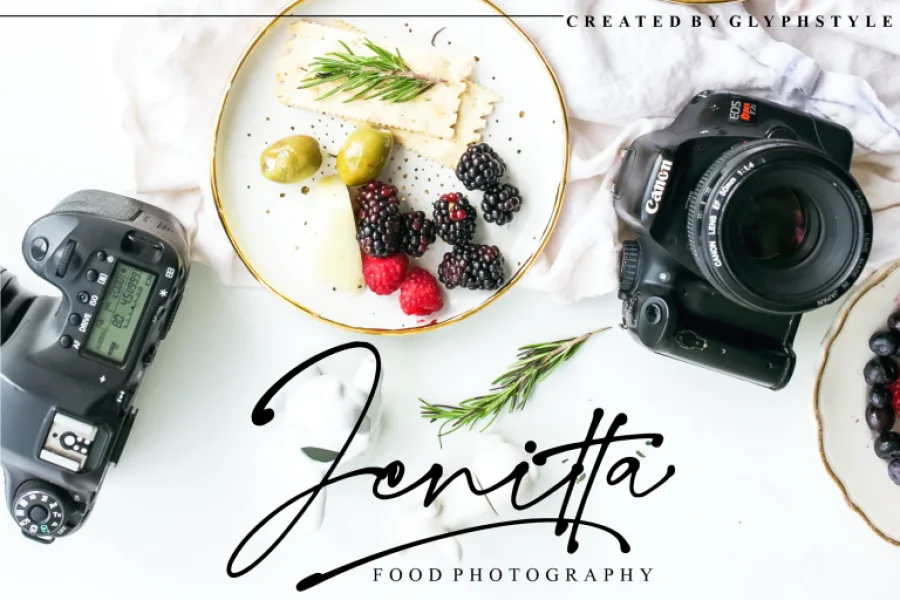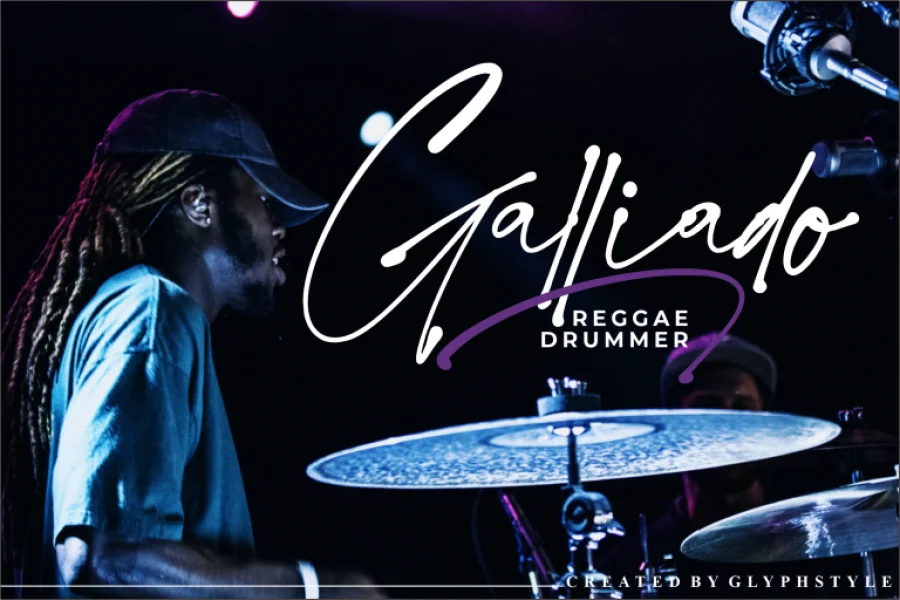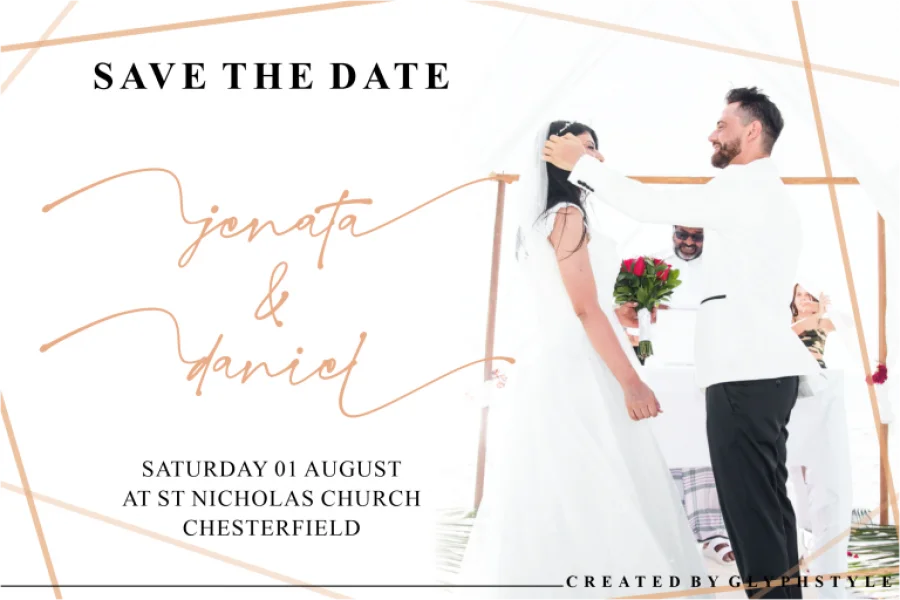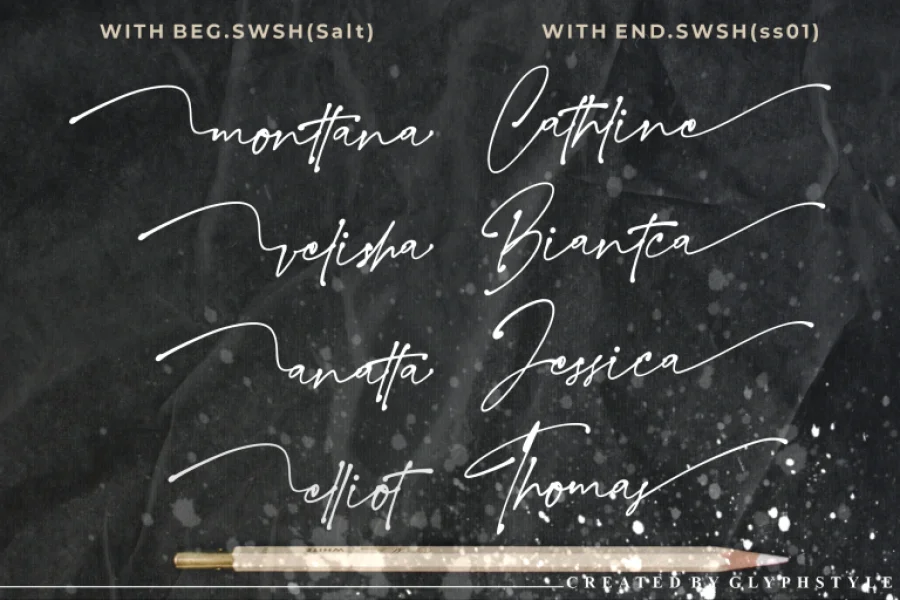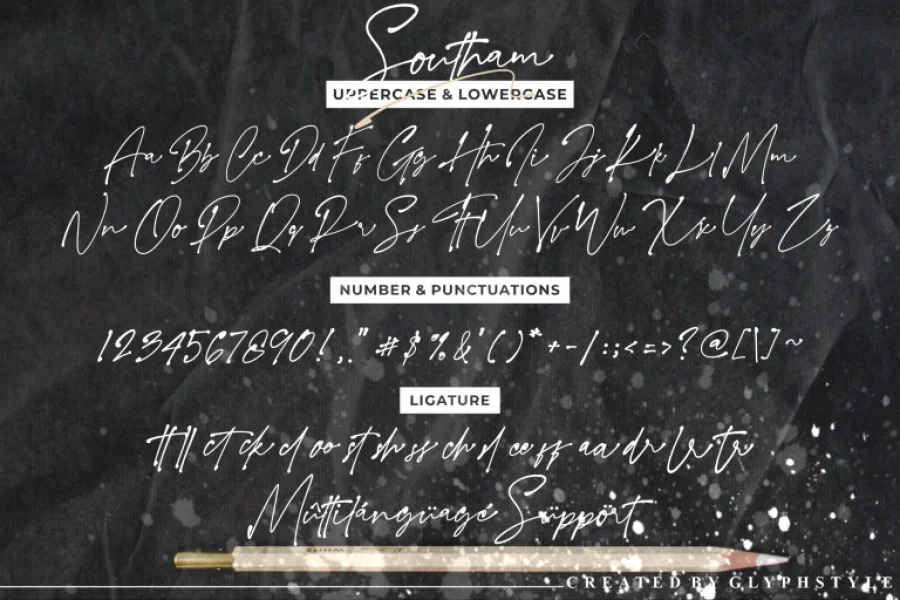
Southam is signature text with ink style & natural flow. Elegant fonts with natural hand scratches. This signature font is perfect for weddings, watermarks, branding, such as interviews, business cards, product logos, etc.